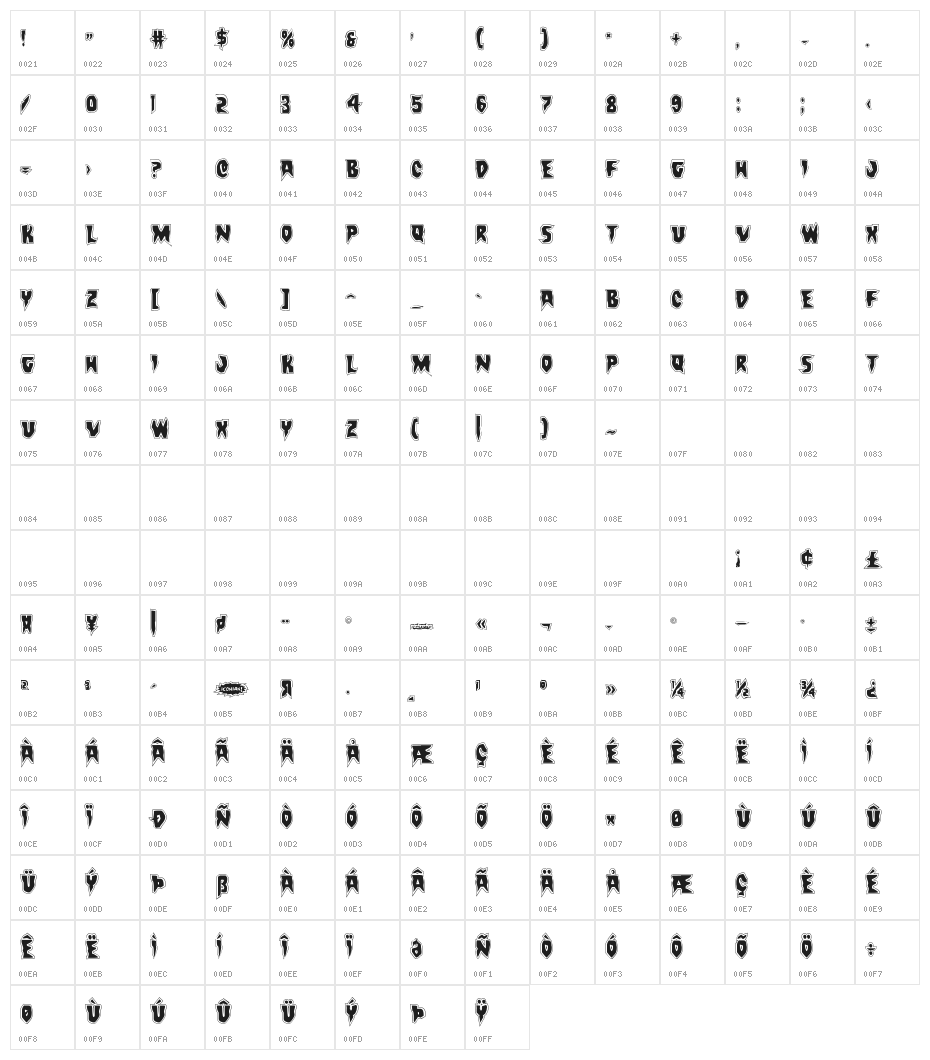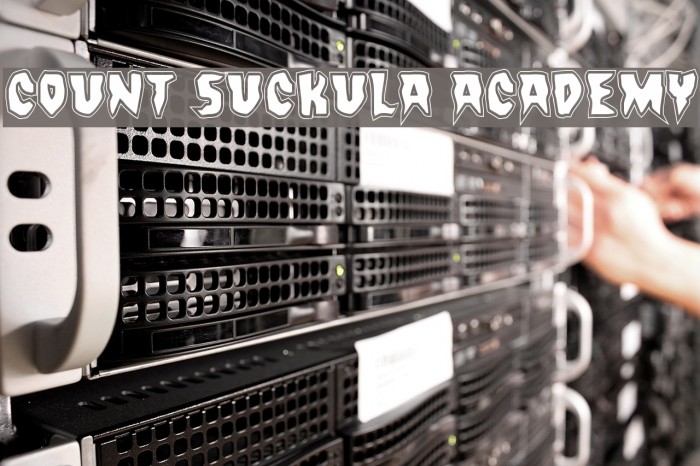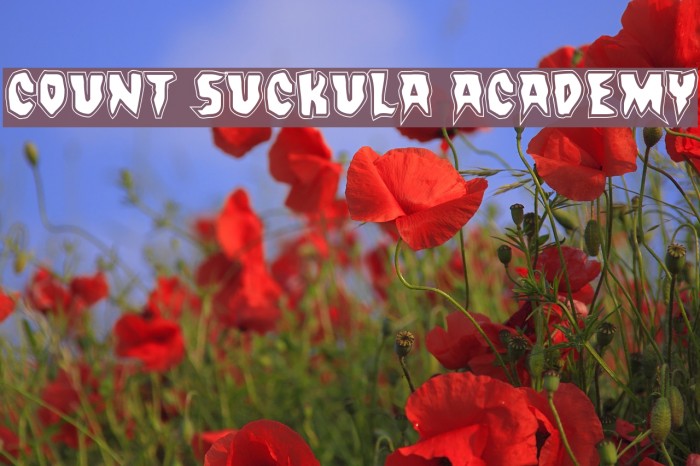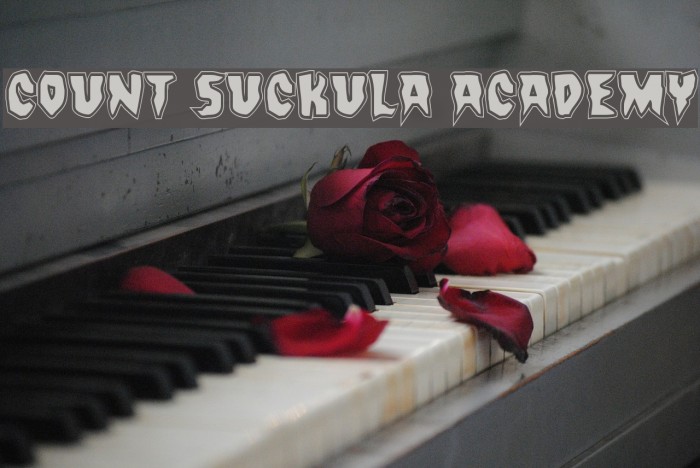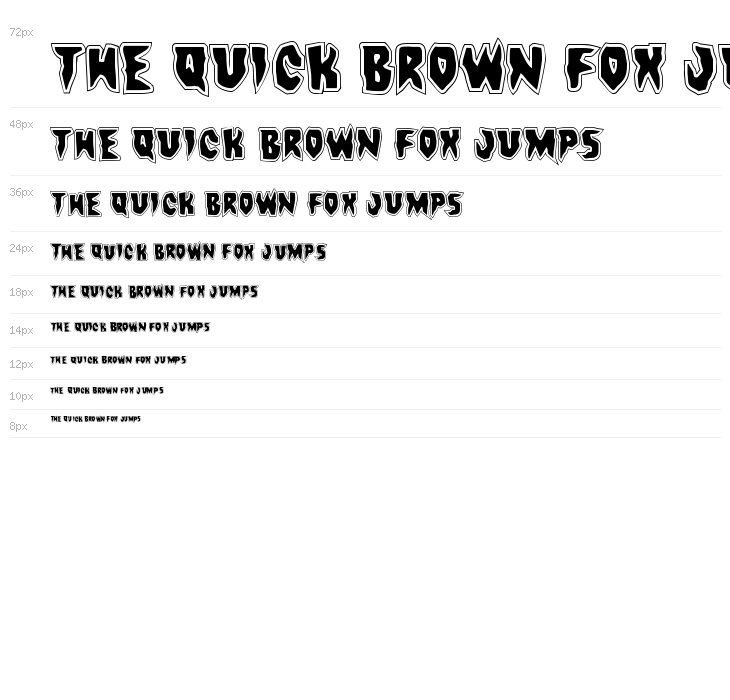
Count Suckula Academy Font
Count Suckula Academy Description
This font features a bold and edgy design with sharp, angular edges and a thick outline that gives it a striking appearance. The characters have a slightly irregular shape, adding a playful and dynamic feel. The uppercase and lowercase letters maintain a consistent style, with the numbers and special characters following suit. The font's unique style makes it stand out, with a slightly gothic or horror-inspired aesthetic, perfect for themes that require a bold statement.
| Use Case | Headlines, Posters, Logos |
| Proposed Projects | Ideal for Halloween-themed designs, horror movie posters, edgy branding, or any project needing a bold, dramatic typeface. |